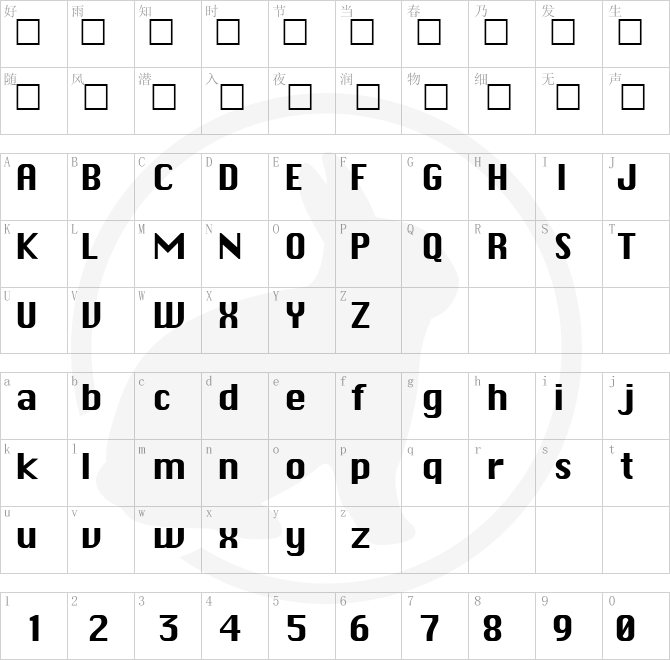
• Font Name:MacEnvy
MacEnvy-Regular.ttf is a very beautiful artistic font, MacEnvy-Regular.ttf is widely used in the design and printing of various books and pictures,MacEnvy-Regular.ttf has a strong visual impact,MacEnvy-Regular.ttf is a commonly used font in newspapers, magazines and books, and is used in posters, e-commerce Poster design, store design, logo design, font design and other fields.MacEnvy-Regular.